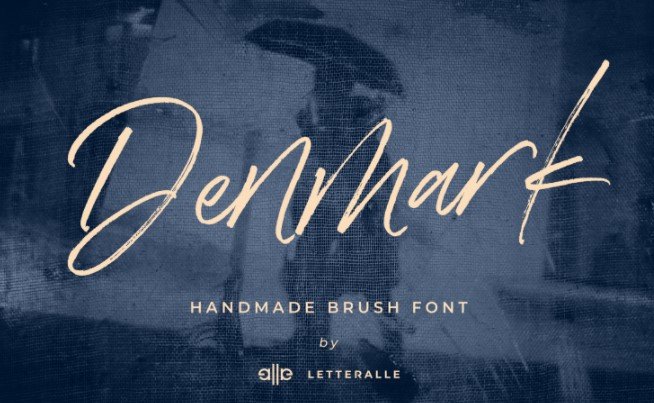
Introducing the Denmark Handwriting Font, a modern, elegant, and contemporary typeface. This font boasts futuristic elements that enhance the visual appeal of your projects. You can effortlessly leverage its benefits to create striking and captivating designs.
The font includes more than 230 characters of all caps including capital and small caps. Also, it has great swashes that will be a great choice for using the font in the projects. The designer of this font is Letteralle who also added more swashes and heavy strokes in it to make it incomparable with others.
The Denmark Handwritten Font is the popular and brilliant scripted typeface which was designed by Letteralle.